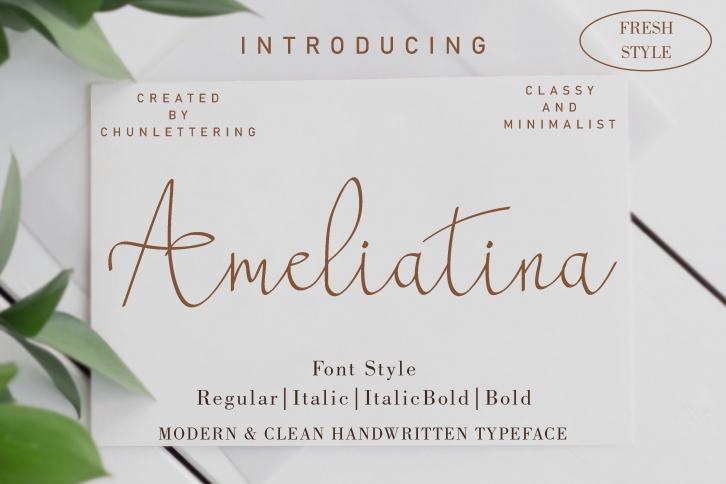
Ameliatina is a delicate and thin lettered script font. This font was particularly crafted for those who need a beautiful and refreshing look to their designs.